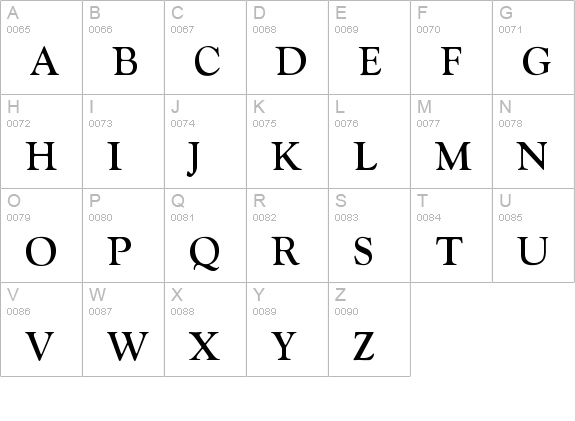
Goudy BQ Bold Font Details
Goudy BQ Bold is a strong, high-contrast variant in the Goudy typeface family \xE2\x80\x94 well suited to headlines, attention-grabbing titles, and strong calls-to-action.
Goudy BQ Bold is a timeless and classic font that exudes elegance and sophistication. Its bold weight commands attention and makes a strong statement in any design project. With its distinctive serifs and well-balanced proportions, Goudy BQ Bold is perfect for headings, titles, and branding materials. The best part is that this exquisite font is available for free download at FontsMarket.com. This means you can enhance your designs with the beauty and versatility of Goudy BQ Bold without having to spend a dime. Don't miss out on this opportunity to elevate your projects with a font that combines tradition with modernity. Download Goudy BQ Bold today and add a touch of sophistication to your creations.